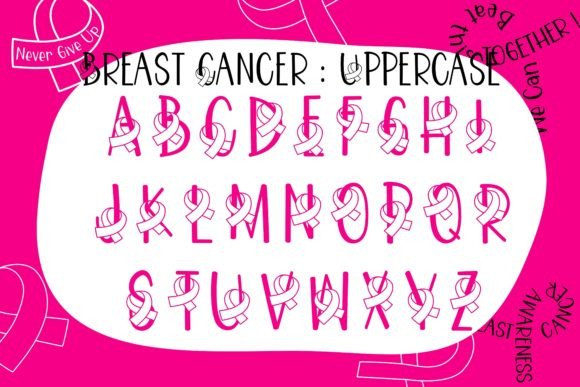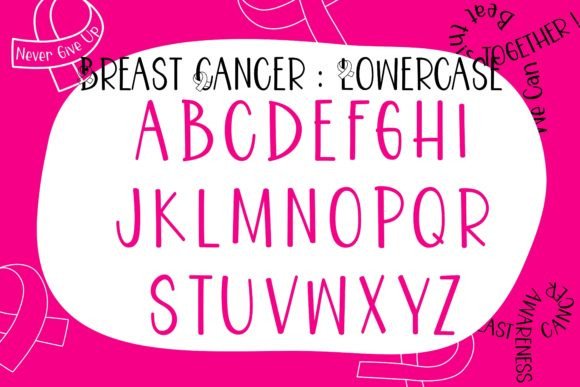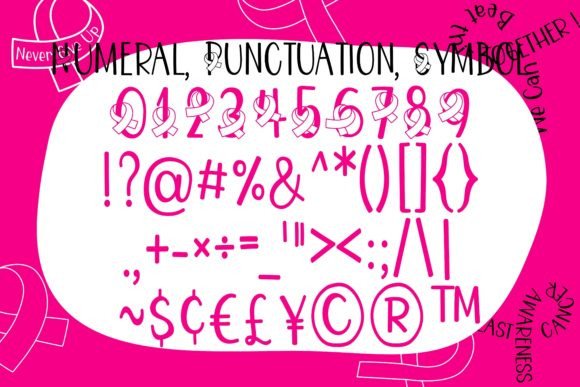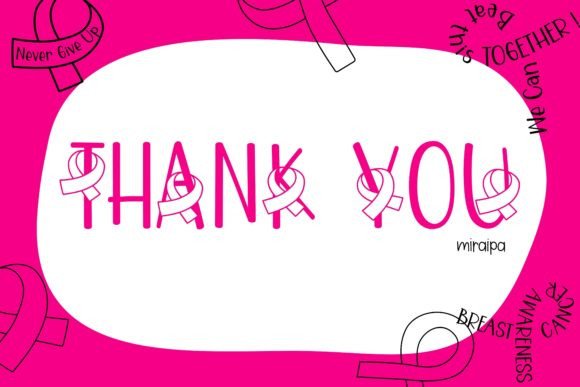
The Power of Typography: Breast Cancer Awareness Font
I’ll never forget the moment I was working on a project to create awareness about breast cancer. I was determined to make it special, but something was missing – the right font. I scoured the internet, tried countless combinations, but nothing seemed to fit the bill. That was until I stumbled upon the Breast Cancer Awareness font. It was like a breath of fresh air! The friendly and lovely font style instantly uplifted my design, and I knew I had found the perfect match.
So, what makes the Breast Cancer Awareness font so special? Let’s dive into the good stuff! 😊
• ✨ Friendly and approachable font style that’s perfect for creating awareness and support materials
• 💖 Emotive and compassionate feel that’s ideal for projects that require a personal touch
• 🎉 Works well with a variety of design elements, from simple text to intricate graphics
• ⚠️ Limited availability of stylistic alternates, which may limit design flexibility
• 🤔 May not be the best choice for very formal or corporate projects, as it has a more playful feel
The Story Behind the Font
The Breast Cancer Awareness font was designed with a simple yet powerful goal in mind: to create a friendly and approachable font style that would inspire support and awareness for breast cancer research. The designer, a creative and compassionate individual, poured their heart and soul into crafting a font that would make a difference.
What is the Breast Cancer Awareness font? The Breast Cancer Awareness font is a decorative font designed to support and create awareness for breast cancer research.